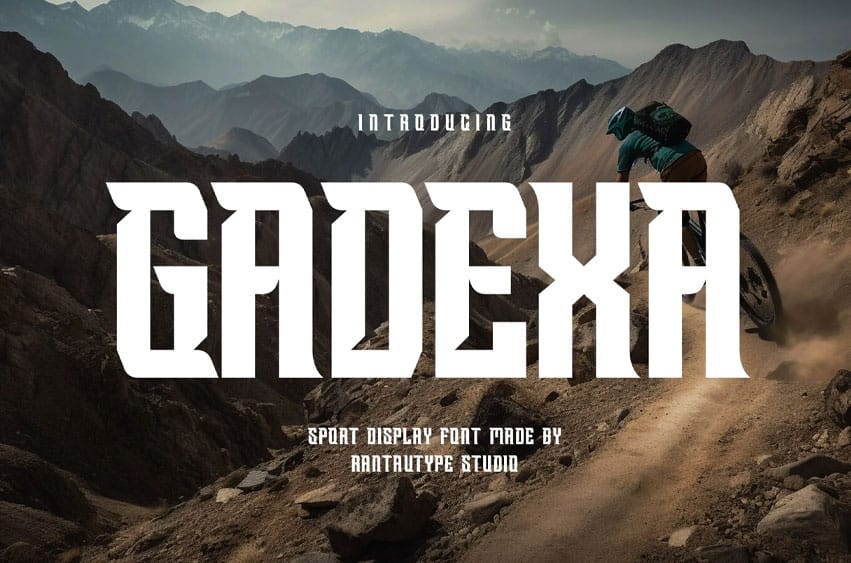
Gadexa Font is a modern sports font with an authentic style. Gadexa is a perfect choice for any creative endeavor, sporty, lifestyle design, such as logotype, advertisements, watermark on photography, stationery, branding project, display and magazine, invitation, corporate brand, product design, label, business project, and many other projects with a sporty touch.